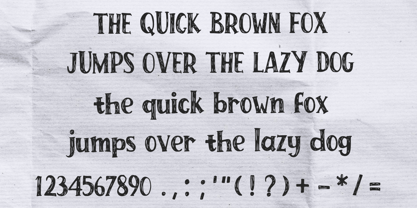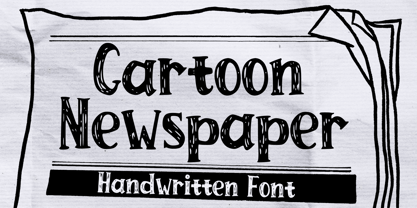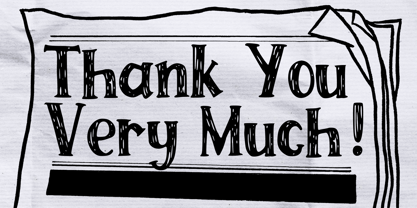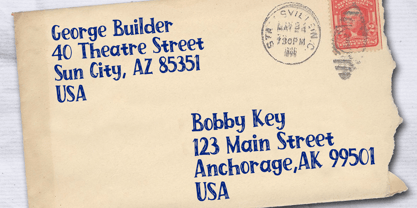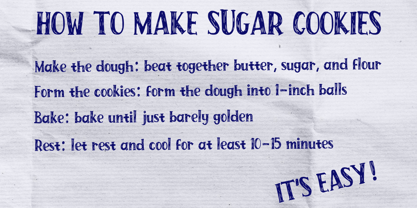
Cartoon Newspaper
by Mvmet
The Cartoon Newspaper Font Family was designed by Gabriel Valentinus and published by Mvmet. Cartoon Newspaper contains 1 styles. More about this family
Cartoon Newspaper is a fun and playful comical pen font, inspired by vintage comic and cartoons and vintage lettering. It will elevate a wide range of design projects to the highest level. You can use this font for many design ideas such as stickers, t-shirt designs, amazing logo designs, magazine or book covers, comics, cartoon drawings, and many more. This font will add a super cool touch to your designs!
Designers: Gabriel Valentinus
Foundry: Mvmet